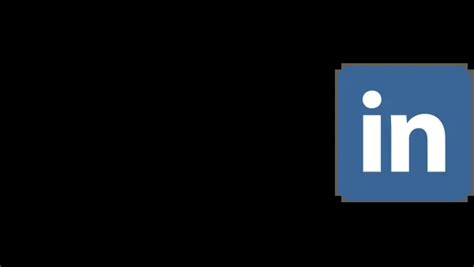
Linkedin Website Font. Web our new custom font is called community. Web the minimum size of our logo and ‘in’ bug is.25 in (6.35mm) in print, or 21px on screen, measured by the height of the bug.
It incorporates elements of handwriting and rounded, more organic letterforms. Web our new custom font is called community. Web the minimum size of our logo and ‘in’ bug is.25 in (6.35mm) in print, or 21px on screen, measured by the height of the bug.
Web our new custom font is called community. It incorporates elements of handwriting and rounded, more organic letterforms. Web the minimum size of our logo and ‘in’ bug is.25 in (6.35mm) in print, or 21px on screen, measured by the height of the bug. Web our new custom font is called community.